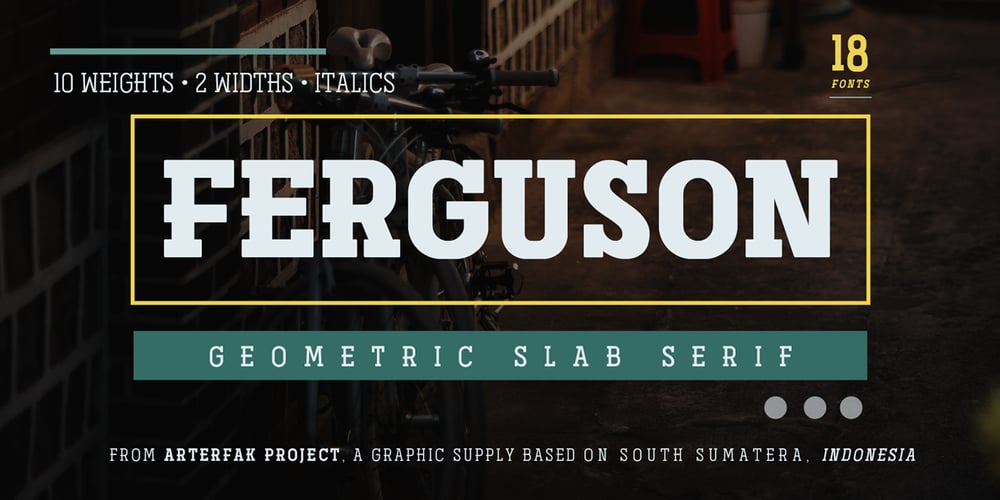
Ferguson Font Family was designed by Ahmad Ramzi Fahruddin and published by Arterfak Project. Ferguson contains 18 styles and family package options. Ferguson is a geometric slab serif which made with a mono-line concept and versatile style. Inspired by old western and magazine designs. Ferguson has a straight and consistent line to give neat looks. Ferguson is made for editorial and formal purposes. but still flexible to use it in other typographic projects. This font family has 6 weights and 2 widths that gives you many options on your designs projects. – Regular versions: Comes from Light, Normal, Medium, Bold, Black, and Ultra Black. Very recommended for editorial use such as body text, sub-headline, and tagline. The bolder weights are goods for headline too. Strong and geometric! Suitable for sports themes, social movement, masculine and logotypes. – Condensed versions: Available in Light, Normal and Bold. Great choice for a headline, and display. This condensed designed a bit minimalist than regular version to keep the readability. Also, there is Bold Shadow style to complete the vintage movement which happening now. Suitable for a poster, magazines, and clothing project. Ferguson font family has up to 28 accents: Afrikaans, Albanian, Catalan, Croatian, Czech, Danish, Dutch, English, Estonian, Finnish, French, German, Hungarian, Icelandic, Italian, Latvian, Lithuanian, Maltese, Norwegian, Polish, Portuguese, Romanian, Slovak, Spanish, Swedish, Turkish, Zulu. Fonts featured : – Uppercase – Lowercase – Numerals – Some symbols – Diacritics Thank you. Hope you like it and enjoy!